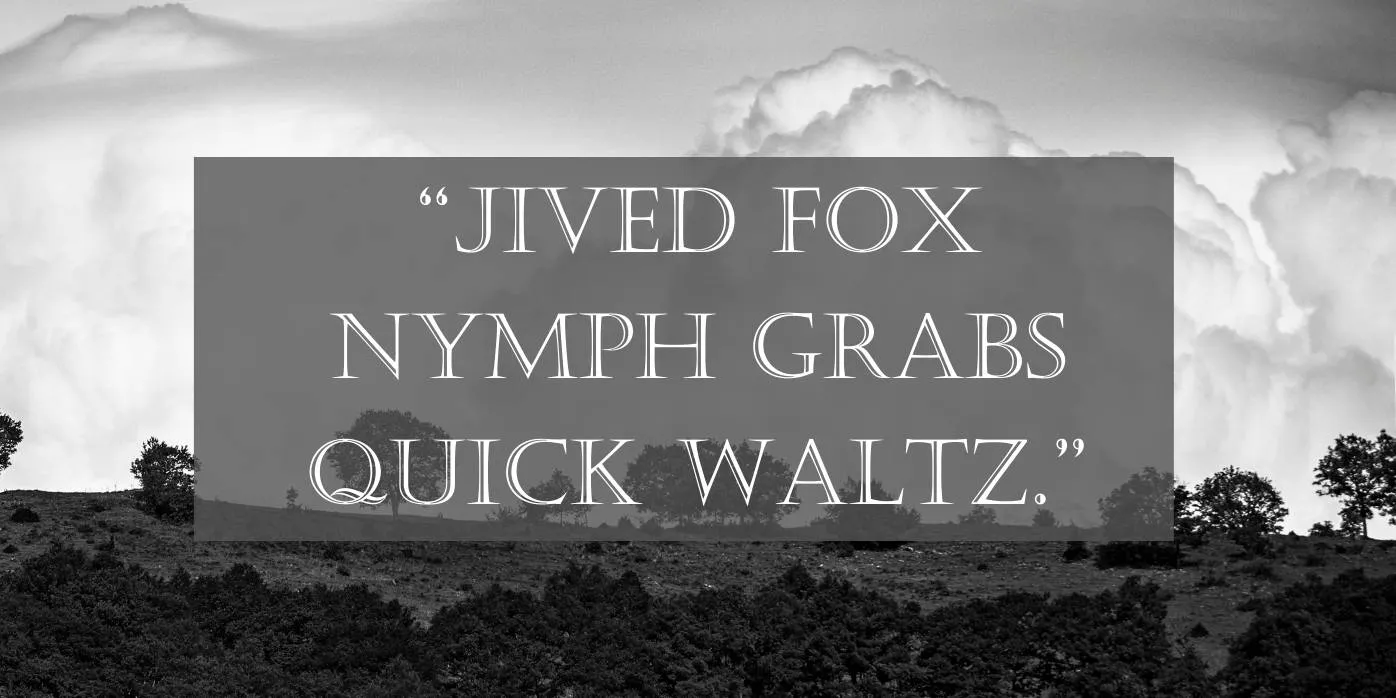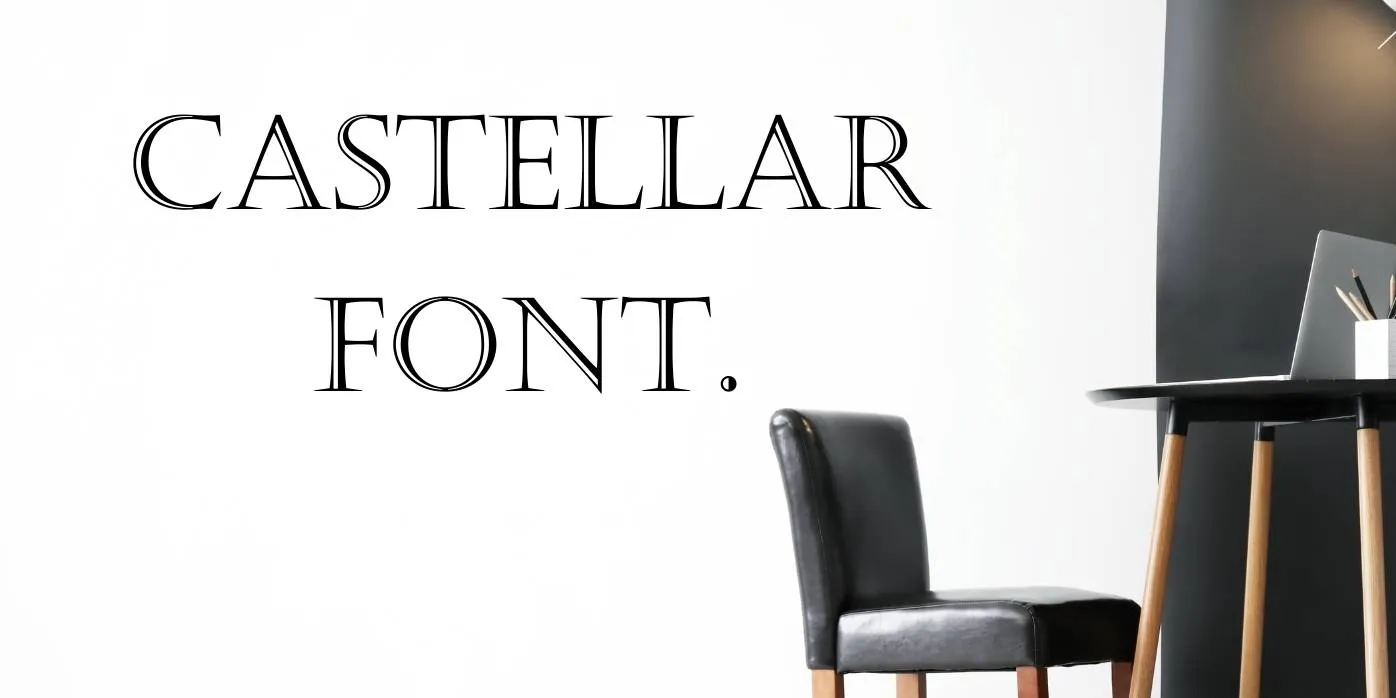
Castellar Font
Today, we introduce Castellar Font, one of the most popular fonts on the web. It is a serif font that is available in both regular and italic styles. It was designed by John Peters and released in 1957. This fascinating typeface is available in six special styles.
Also, it has 3 weights Light, Regular, and Bold with matching italics. This typeface is a highly readable font that is perfect for long blocks of text. It is also very versatile and can be used for a wide variety of projects. A similar font of this typeface is the Weidemann font.
Whether you are looking to create a website or design a brochure, this font will help you get the job. This stylish typeface is used by many well-known websites, including Google, Yahoo, and Microsoft. It is specified by the CSS. This typeface is very popular among designers and is sure to give your project a professional look.